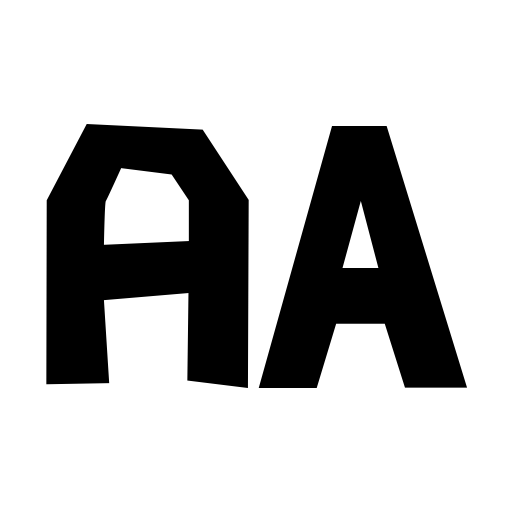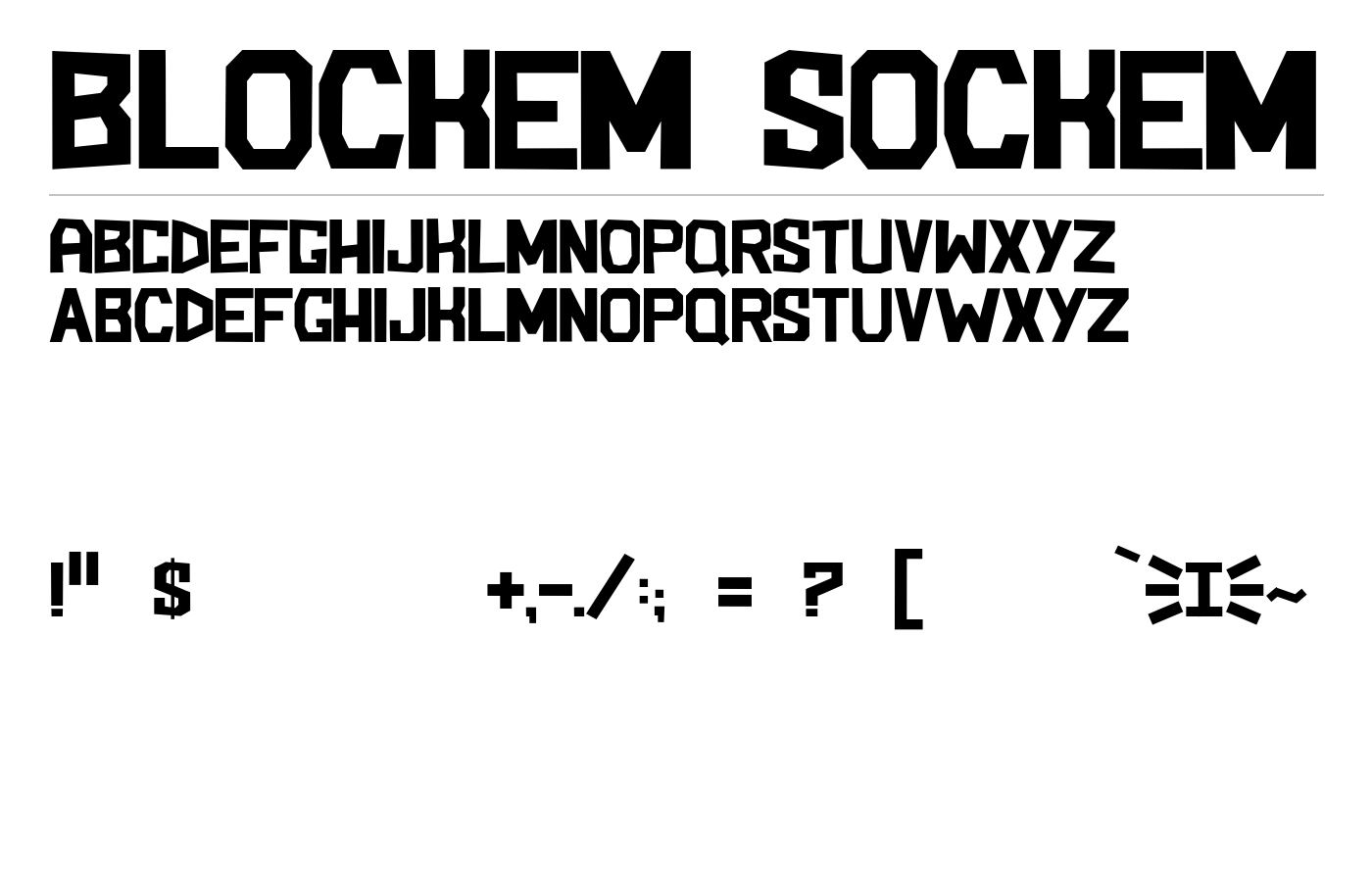
Blockem Sockem is a bold, condensed sans serif font with a strong, geometric character and slightly irregular, quirky shapes that give it a playful yet commanding presence. Its thick, blocky strokes and minimal stroke contrast make it ideal for impactful headlines, logos, or poster designs where a dynamic and fun vibe is desired. This font works well for brands or projects looking to communicate energy and boldness with a unique, modern twist.
Blockem Sockem Font
About Blockem Sockem Font
| Designer | Jason L. Arthur |